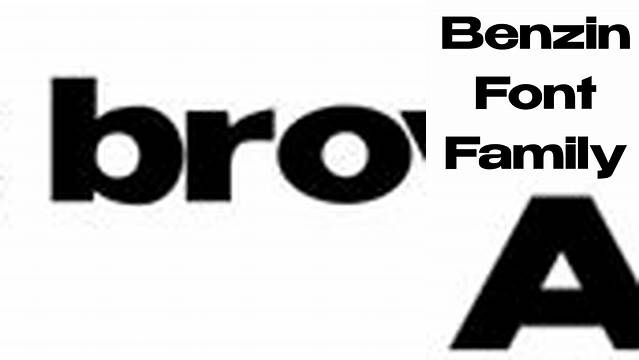
1. What is Benzin Extra Bold Font?
Benzin Extra Bold is more than just a font; it's a statement. Its robust and assertive character makes it ideal for headlines, posters, and branding materials where you want to grab attention immediately. This font exudes confidence and strength, making it a go-to choice for designers aiming to convey a sense of authority and modernity. The clean lines and strong letterforms ensure readability while maintaining a contemporary aesthetic. Its versatility also means it works well in both digital and print mediums. For instance, using Benzin Extra Bold in a website header can instantly elevate the visual appeal, while its use in printed advertisements ensures your message stands out from the clutter. The meticulous design behind Benzin Extra Bold accounts for kerning and spacing, resulting in a harmonious and professional look. Overall, understanding the fundamental characteristics of Benzin Extra Bold will enable you to leverage its strengths effectively in your design projects, making it a valuable asset in your typographic toolkit.
2. Key Features of Benzin Extra Bold
The Benzin Extra Bold font boasts several key features that make it a standout choice for various design applications. One of the most noticeable aspects is its thick, weighty strokes, which command attention and add visual impact. This boldness ensures that text remains legible even from a distance, making it perfect for billboards, banners, and large-format prints. The font also features a contemporary sans-serif design, characterized by clean, geometric shapes and a lack of decorative serifs. This modern aesthetic lends itself well to tech startups, fashion brands, and any project aiming for a sleek, minimalist look. Furthermore, Benzin Extra Bold often includes a comprehensive character set, encompassing uppercase and lowercase letters, numerals, punctuation marks, and special symbols. This extensive range allows for greater flexibility and creativity in your designs. Advanced versions of the font may also offer multiple weights and styles, such as italic or condensed variations, providing even more options for customization. Ultimately, the combination of its striking boldness, modern design, and comprehensive feature set makes Benzin Extra Bold a versatile and powerful tool for any designer.
30. The Future of Benzin Extra Bold in Design
Looking ahead, Benzin Extra Bold is likely to remain a popular choice in design due to its versatility and timeless appeal. As design trends evolve, it will continue to be adapted and used in new and creative ways. We might see it paired with more experimental fonts or used in innovative layouts. Its bold and modern aesthetic makes it well-suited for emerging technologies like virtual reality and augmented reality. Whether it's used for branding, web design, or print materials, Benzin Extra Bold will continue to make a strong impact on the visual landscape for years to come.